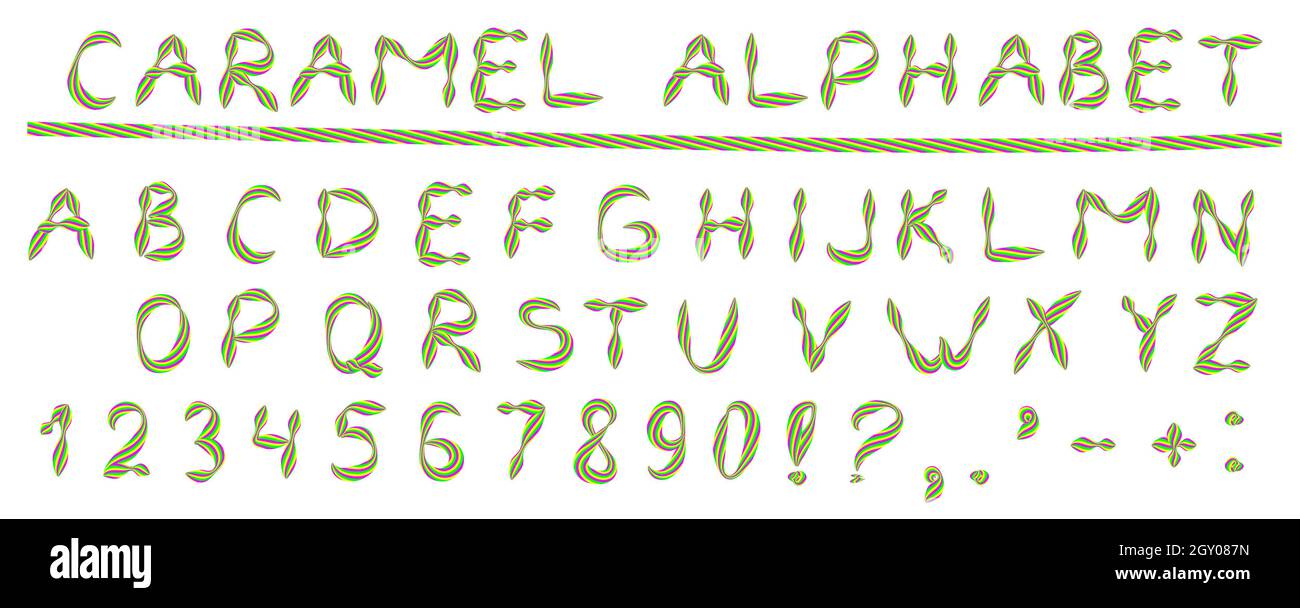
Caramel font design. Sweet glossy ABC letters and numbers. 622657 Caramel Candy Font Caramel candy is a flowing handwritten font, described by an elegant touch, perfect for your favorite projects. The typeface contains 1 file and supports 39 languages. Download now and make your text stand out! Click now to create a custom image with your own words that you can download. 79,963 downloads (116 yesterday) 100% free. Free download of caramel candy. Caramel Candy Font.
Chocolate font type, choco candy alphabet of liquid caramel vector text Caramel Candy Font Font ini hanya dapat digunakan untuk keperluan personal use, atau untuk keperluan yang sifatnya tidak komersil, alias tidak menghasilkan profit atau. Fall in love with its incredibly. Free download of caramel candy font. Super caramel à € by fsuarez913. Click now to create a custom image with your own words that you can download. Download now and make your text. Caramel Candy Font.
Latin alphabet made of caramel candies isolated on white. Font made of Caramel Candy Font Fall in love with its incredibly. Super caramel à € by fsuarez913. Caramel candy is a font. 79,963 downloads (116 yesterday) 100% free. Caramel candy is a flowing handwritten font, described by an elegant touch, perfect for your favorite projects. Click now to create a custom image with your own words that you can download. Font ini hanya dapat digunakan. Caramel Candy Font.
Letter S Candy Font. Caramel Alphabet. Lollipop Lettering Stock Vector Caramel Candy Font Caramel candy is a flowing handwritten font, described by an elegant touch, perfect for your favorite projects. Click now to create a custom image with your own words that you can download. Fall in love with its incredibly. Free download of caramel candy font. 79,963 downloads (116 yesterday) 100% free. Super caramel à € by fsuarez913. Caramel candy is a. Caramel Candy Font.